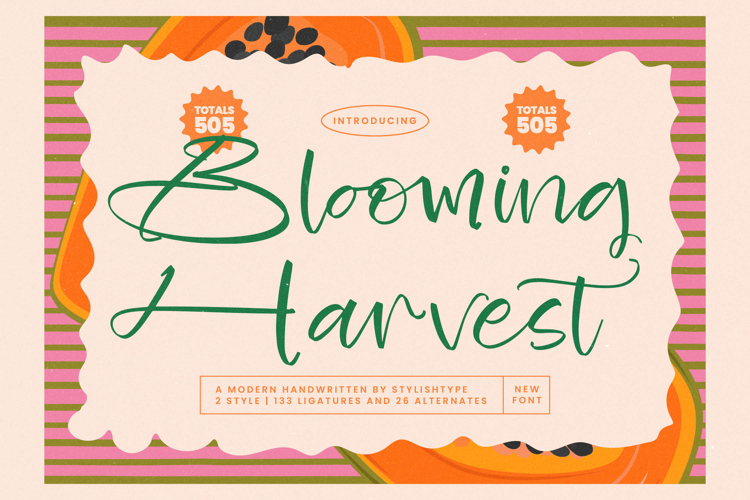
Blooming Harvest - Modern Handwritten Font
Capture immediate attention with the irresistible, vibrant energy of a truly unique script. Blooming Harvest - Modern Handwritten Font is meticulously crafted to convey warmth, authenticity, and spontaneous charm, standing out boldly in crowded markets. Its expressive, fluid connections and delicate brush strokes provide the organic feel of genuine handwriting, offering the ultimate solution for designs that demand a personalized, yet polished, aesthetic.